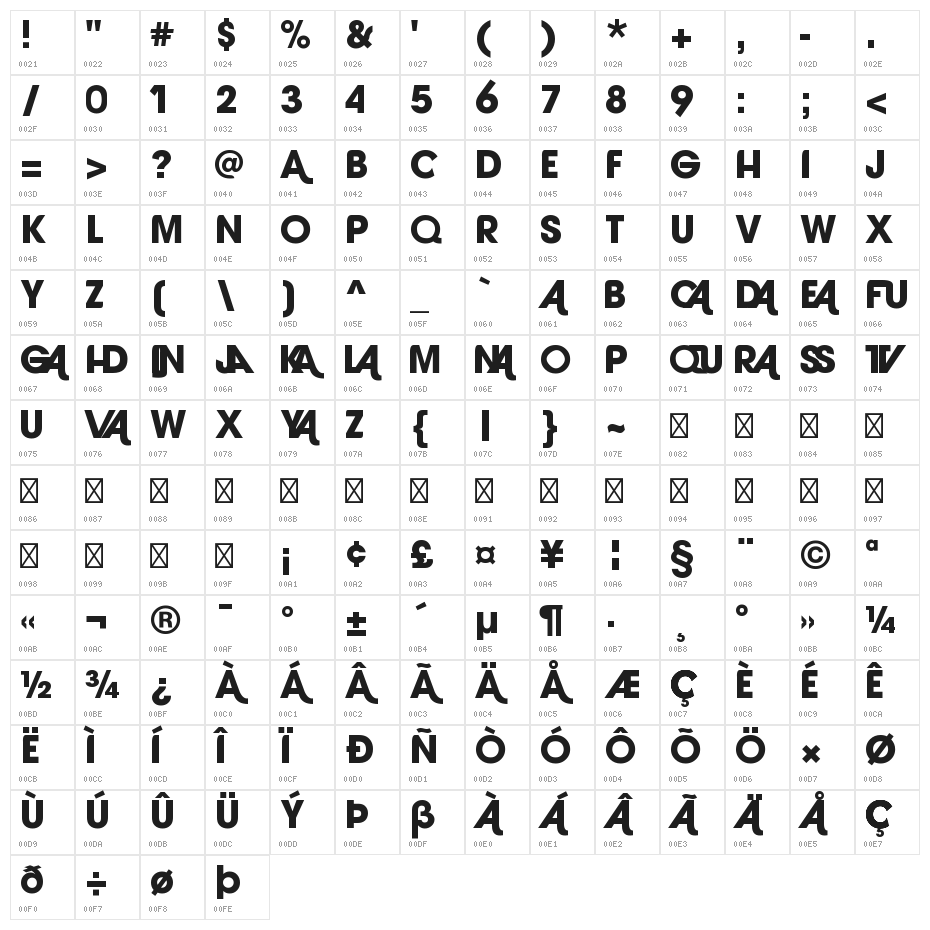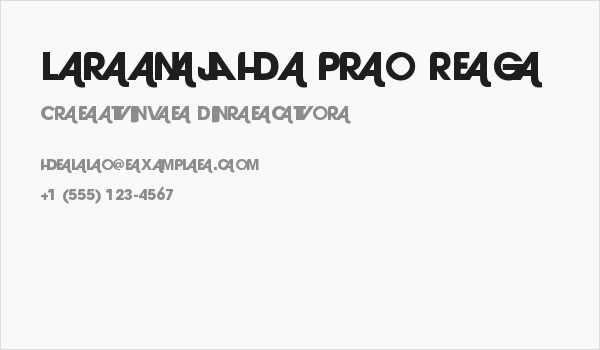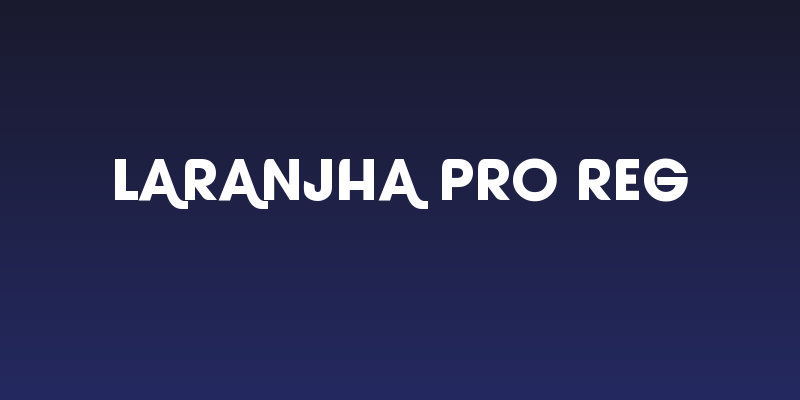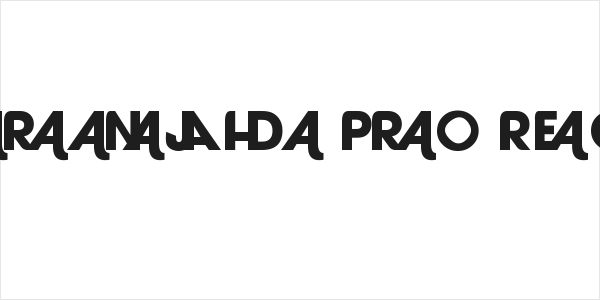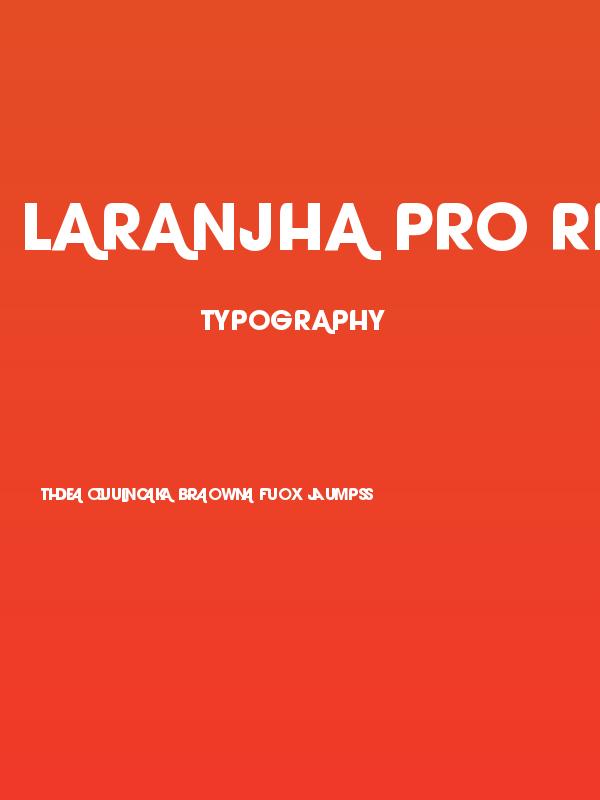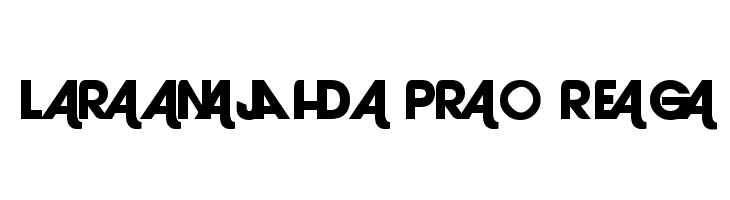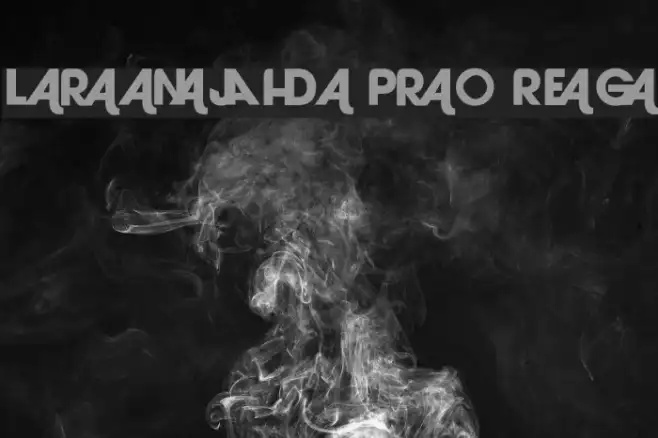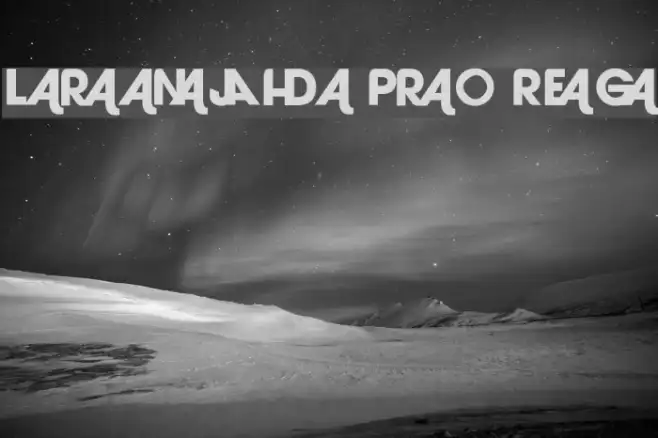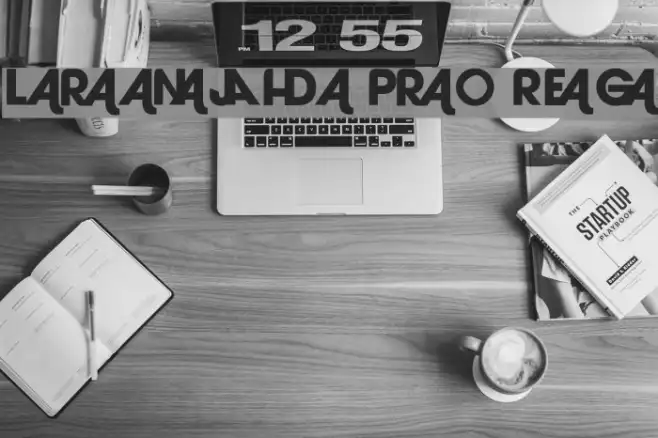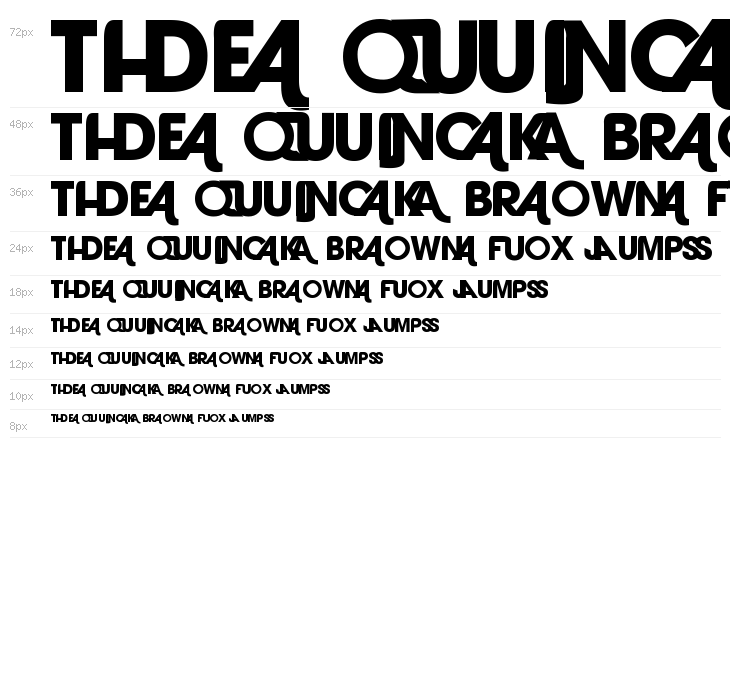
Laranjha Pro Reg Font
Laranjha Pro Reg Description
This font features bold, geometric letterforms with a strong presence. The uppercase characters are uniform in height and width, providing a sense of stability and modernity. The lowercase letters maintain the boldness of the uppercase, with slightly rounded edges that soften the overall appearance. The numerals are consistent with the bold style, ensuring readability and impact. Special characters are designed with the same geometric precision, making them stand out while remaining cohesive with the rest of the typeface. This font is ideal for making a statement, with its high contrast and solid structure.
| Proposed Projects | Ideal for branding, headlines, posters, and any project requiring a strong visual impact. |